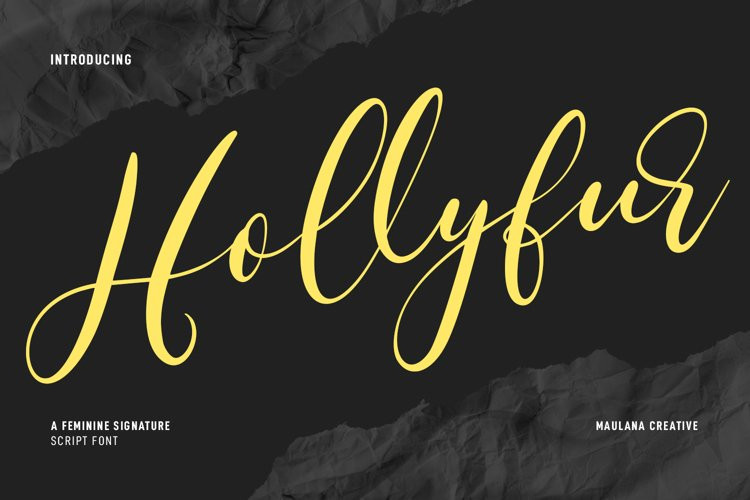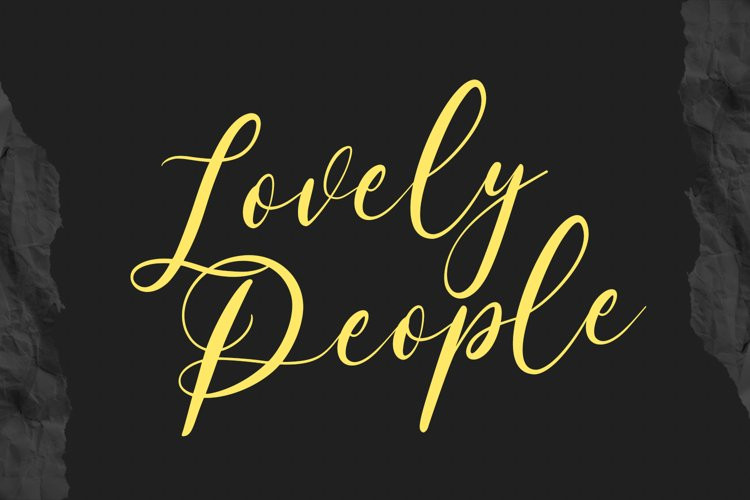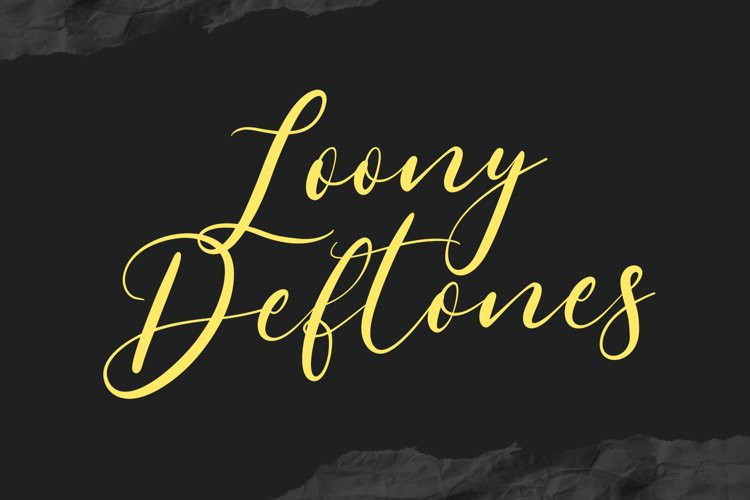
Hollyfur Font
Hollyfur FontHollyfur is a cursive beauty and feminine script font. With high contrast stroke, fun character with a bit of ligatures and alternates. To give you an extra creative work. Hollyfur font support multilingual more than 100+ language. This font is good for logo design, Social media, Movie Titles, Books Titles, a short text even a long text letter and good for your secondary text font with sans or serif. Make a stunning work with Hollyfur font.